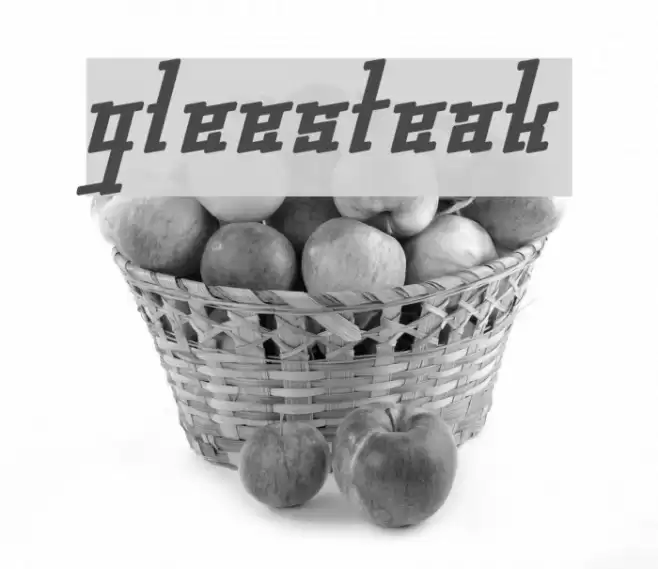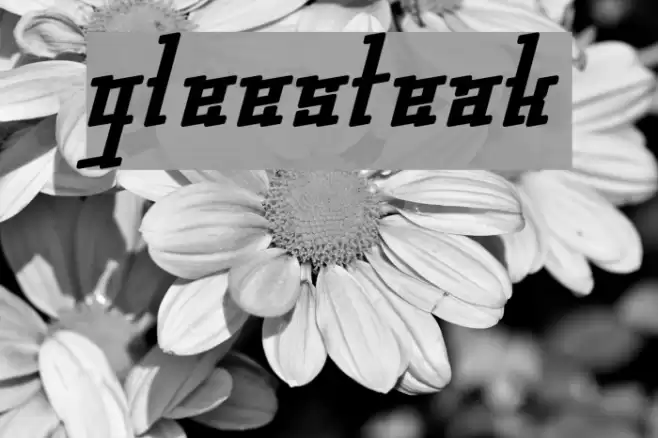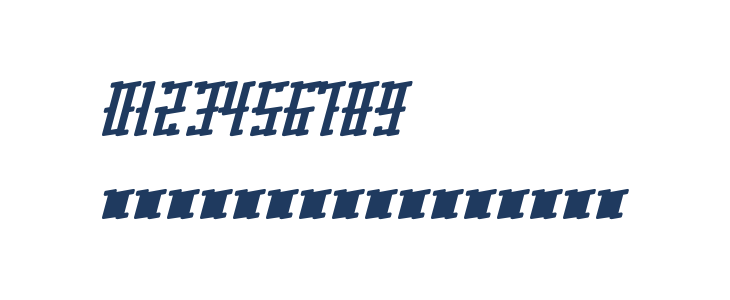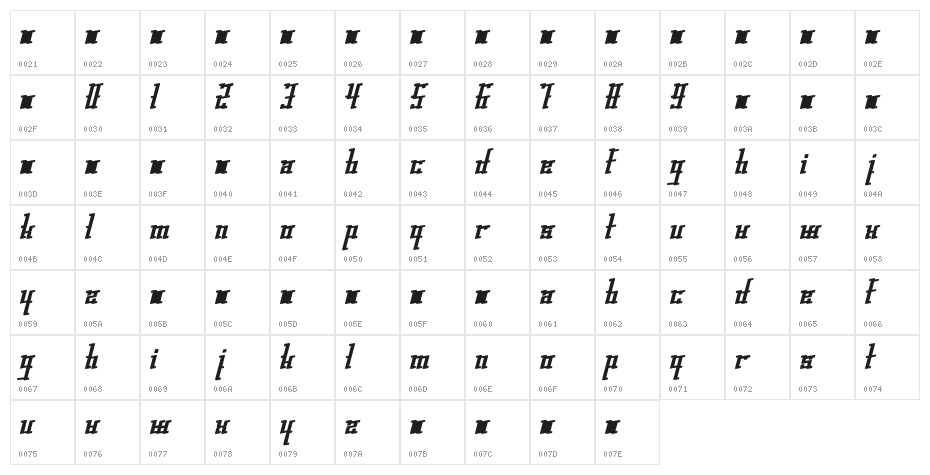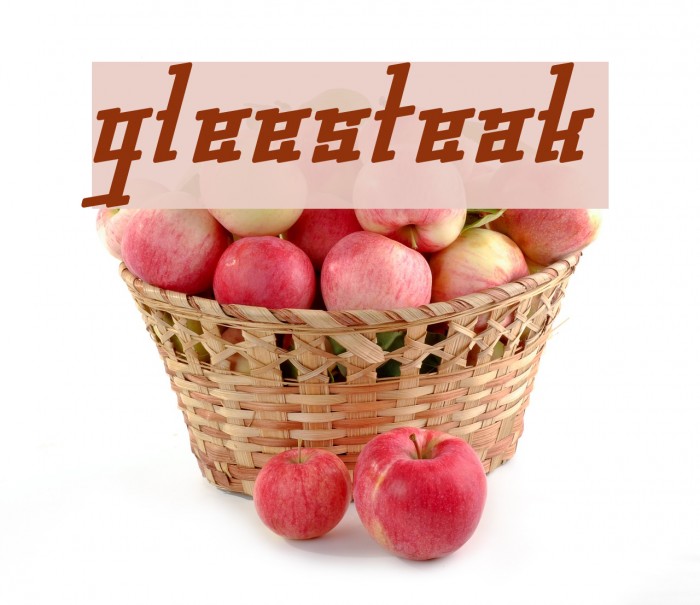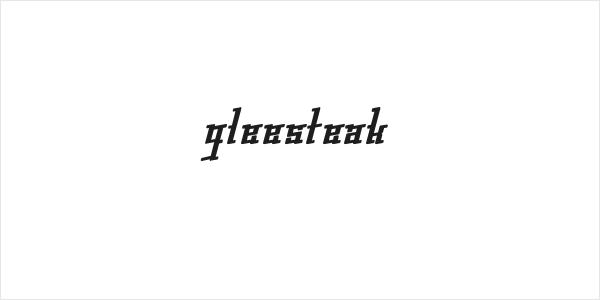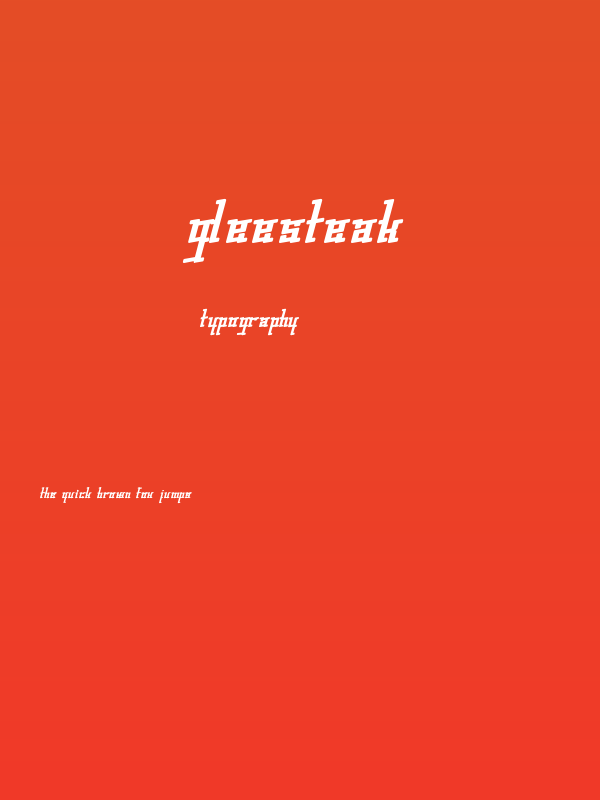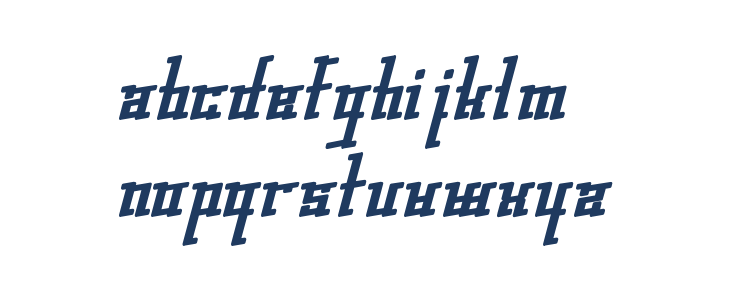
gleesteak Font
gleesteak Description
This font features a bold, angular design with a distinct slant, giving it a dynamic and energetic appearance. The characters are sharply defined with a consistent stroke width, creating a uniform look across both uppercase and lowercase letters. The numbers and special characters maintain this style, ensuring cohesion throughout. The font's geometric structure and italicized form contribute to its modern and edgy aesthetic, making it suitable for attention-grabbing designs. The spacing between characters is tight, enhancing its compact and impactful presence.
A bold, angular, italicized font with a modern and dynamic style from Uncategorized fonts.
- Proposed Projects: Ideal for sports branding, dynamic posters, edgy logos, and modern advertising campaigns.
- Character Spacing: Tight